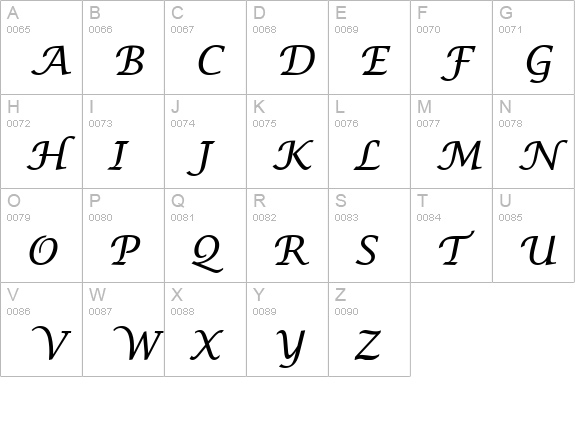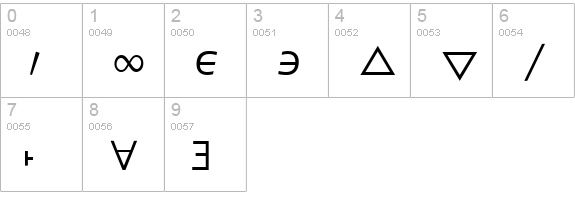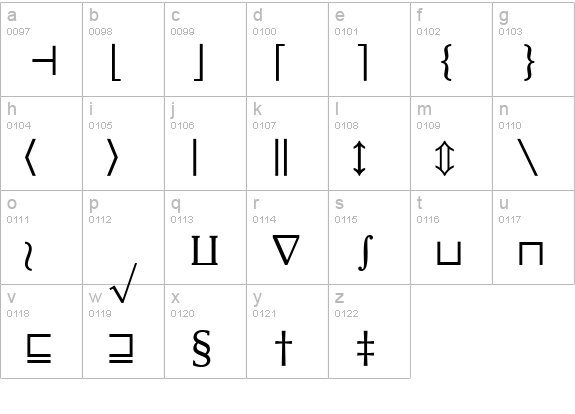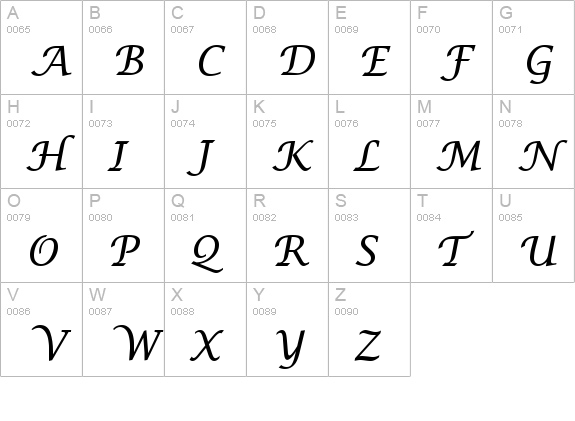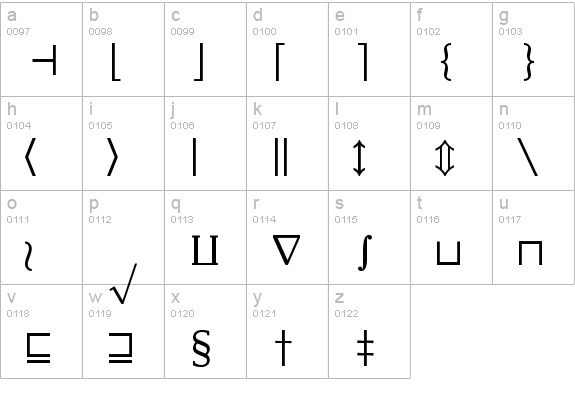
Insight Math Symbol SSi Symbol Font Details
Introducing the remarkable Insight Math Symbol SSi Symbol font, a meticulously crafted typeface that will take your mathematical expressions and equations to new heights of clarity and elegance. Designed with precision and attention to detail, this font offers a comprehensive array of mathematical symbols, ensuring seamless integration into any academic or professional project. With its sleek and modern design, Insight Math Symbol SSi Symbol font not only enhances the readability of mathematical content but also adds a touch of sophistication to your work. It strikes the perfect balance between simplicity and complexity, making it suitable for a wide range of applications, from textbooks and research papers to presentations and digital media. One of the most remarkable aspects of Insight Math Symbol SSi Symbol font is that it is freely available to download at FontsMarket.com. This means that you can access this extraordinary font without any cost, making it an invaluable resource for students, educators, and professionals alike. Whether you are a math enthusiast working on complex calculations or a teacher looking to create engaging educational materials, this font is sure to become an essential part of your toolkit. Furthermore, Insight Math Symbol SSi Symbol font is incredibly versatile and compatible with various software and platforms, ensuring a seamless integration into your existing workflow. Its high-quality design and impeccable legibility make it an excellent choice for both print and digital applications, guaranteeing that your mathematical content will always shine with clarity and precision. In conclusion, Insight Math Symbol SSi Symbol font is a must-have for anyone seeking to elevate their mathematical expressions to new heights. Its sleek design, extensive symbol repertoire, and compatibility with different platforms make it a go-to choice for professionals in the field. And the fact that it is freely available to download at FontsMarket.com makes it an irresistible offer. Don't miss out on this incredible opportunity to enhance your mathematical work and download Insight Math Symbol SSi Symbol font today!